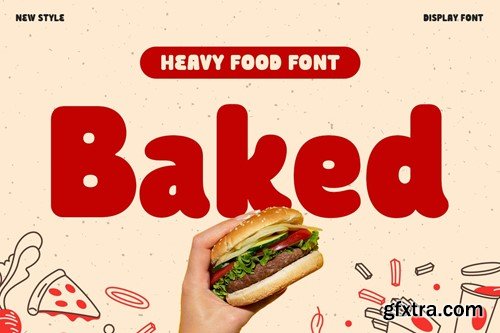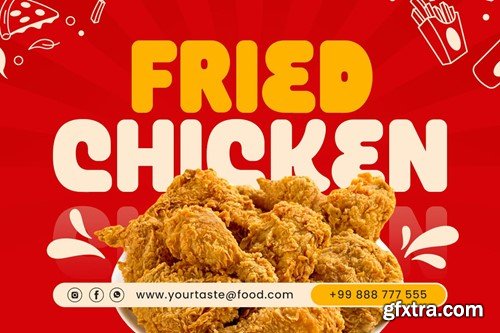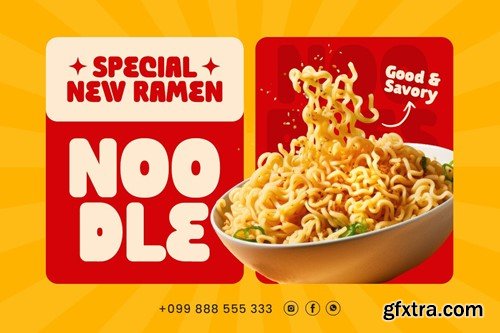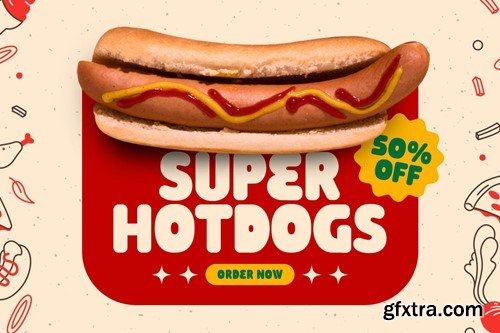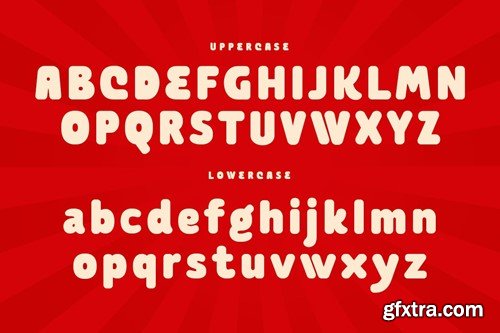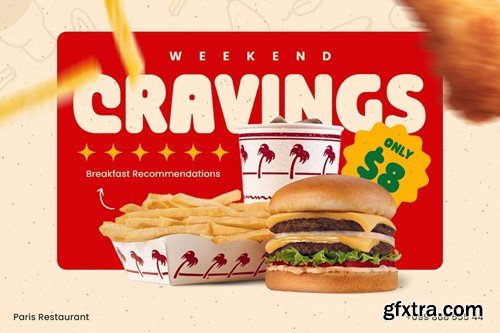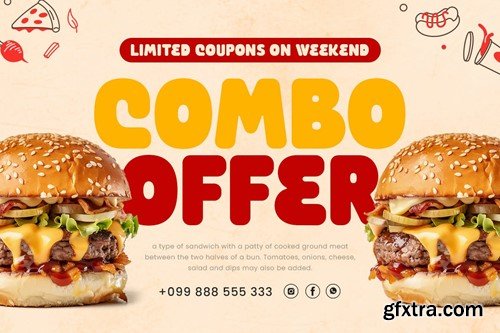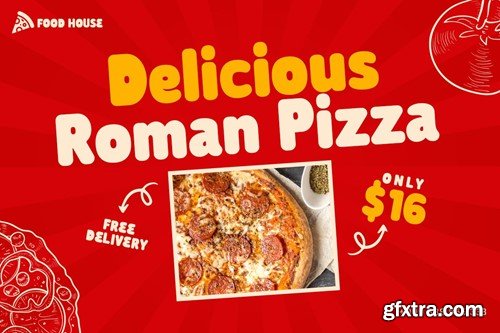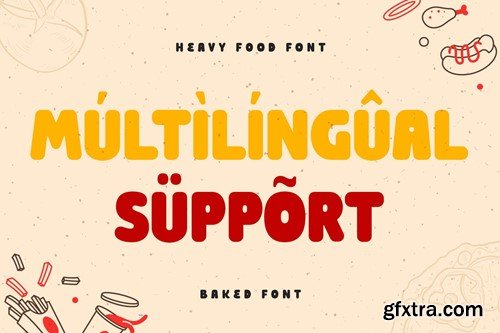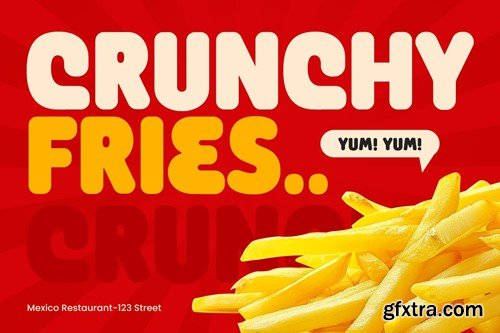
Baked is a heavy food font crafted to make your culinary headlines and designs stand out. Inspired by the rich, hearty essence of baked goods, Baked combines weight and character to create a font that's perfect for bold headlines, delicious menus, and eye-catching food-related designs. Whether you're designing a standout menu, creating a logo for a bakery, or crafting mouth-watering branding materials, Baked adds the perfect touch of flavor to your projects. The Story Behind Baked: Baked was inspired by the comforting and inviting world of baked goods. Designed with a heavy, bold style, Baked captures the essence of warmth, satisfaction, and culinary delight. It’s perfect for any project that needs to evoke a sense of richness and flavor. From cozy cafes and bustling bistros to gourmet bakeries and food festivals, Baked is the ideal font for all things food-related. Baked Font Features: Enhance your culinary designs with Baked and add a heavy, flavorful touch to your work.